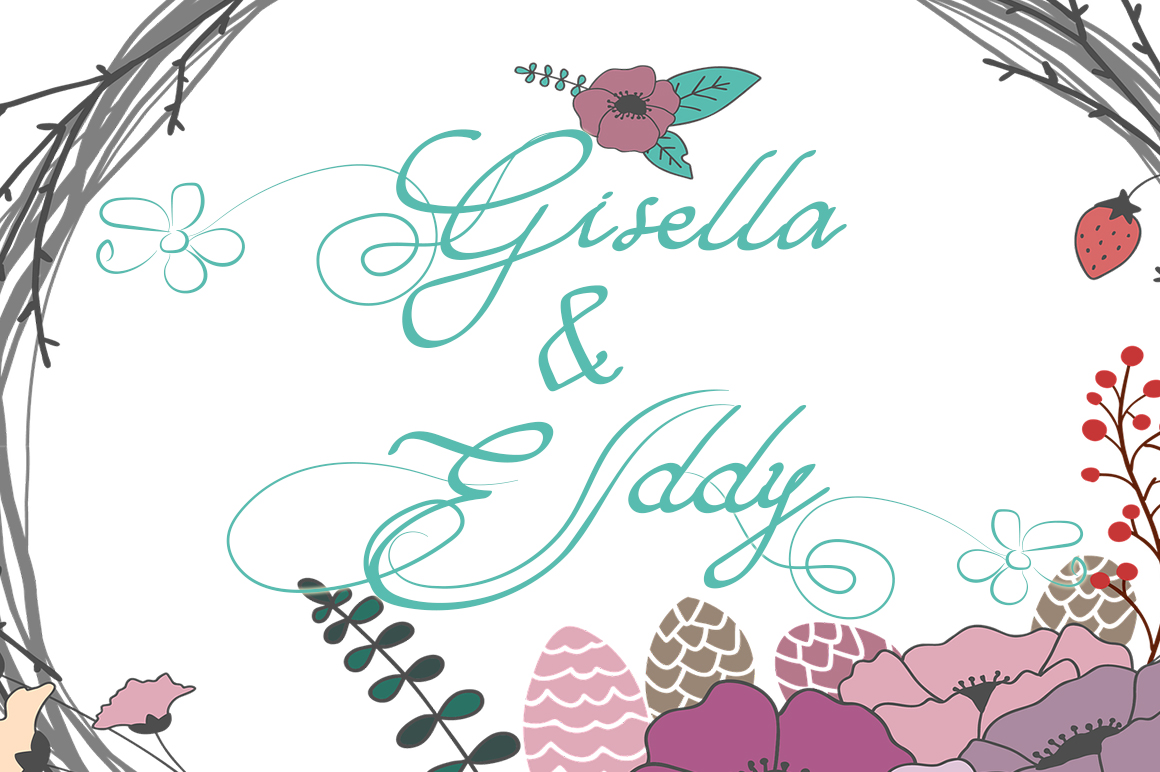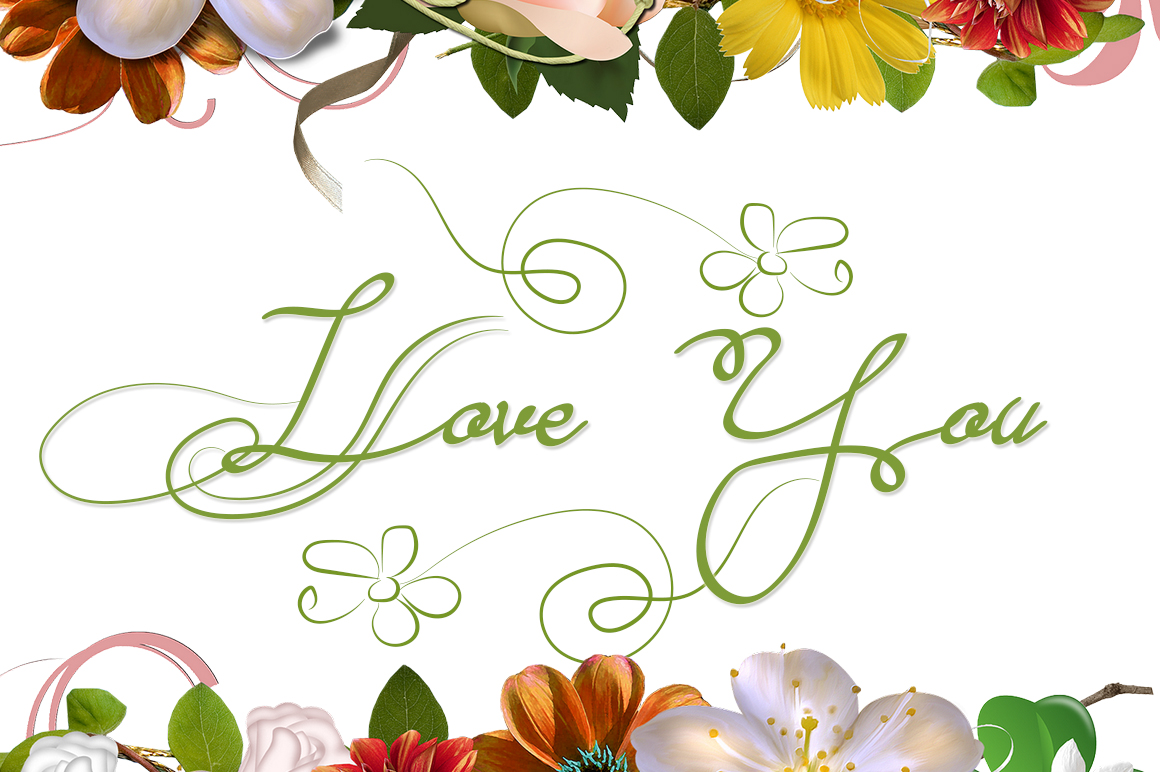
Wedding Script Typeface
It’s a beautiful light handwritten font with a unique feel and a stunning impact. It will add a luxury spark to any design project that you wish to create! This font is PUA encoded which means you can access all of the amazing glyphs and ligatures with ease!